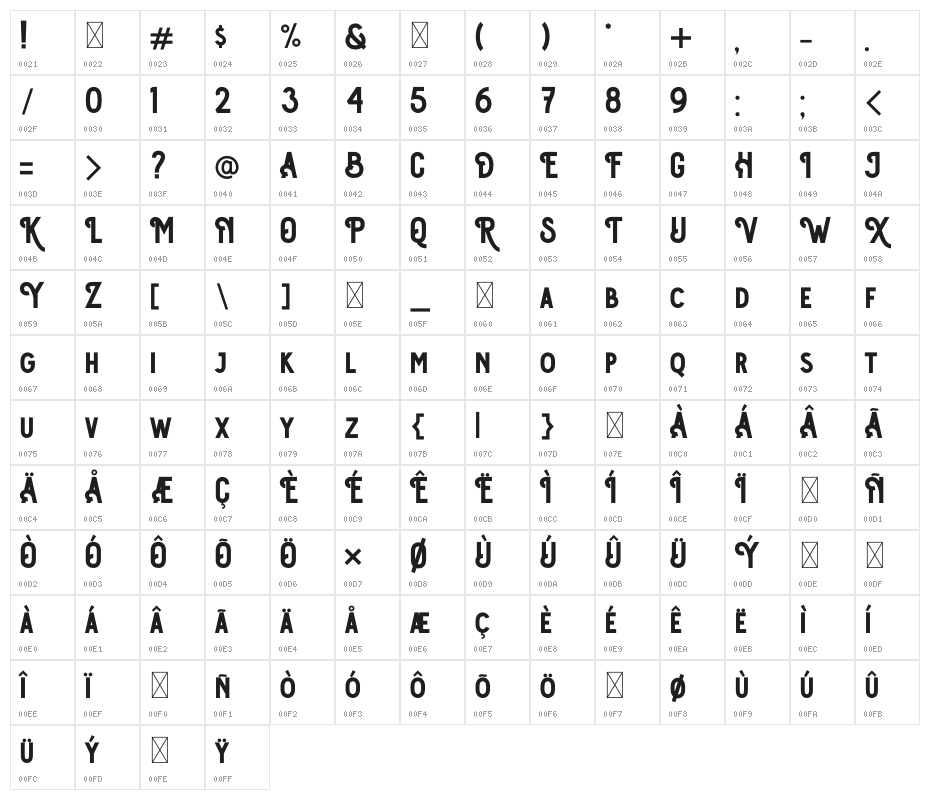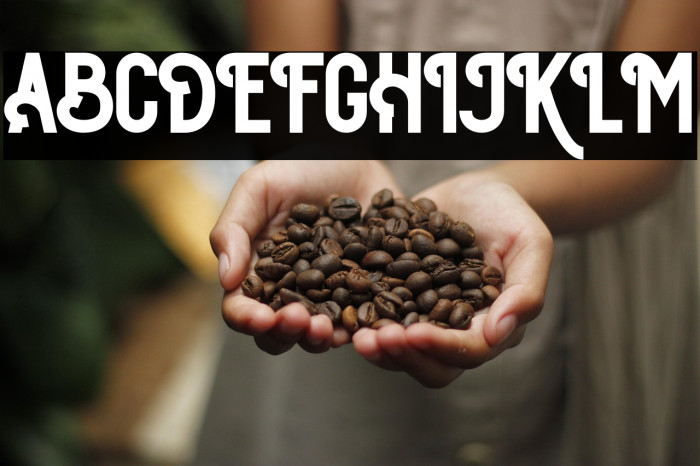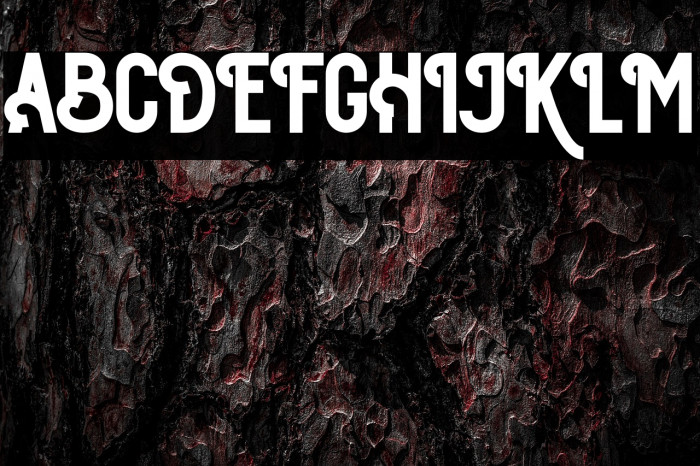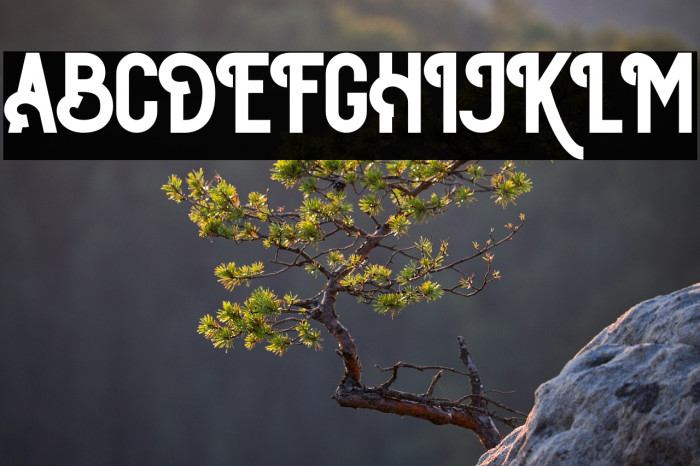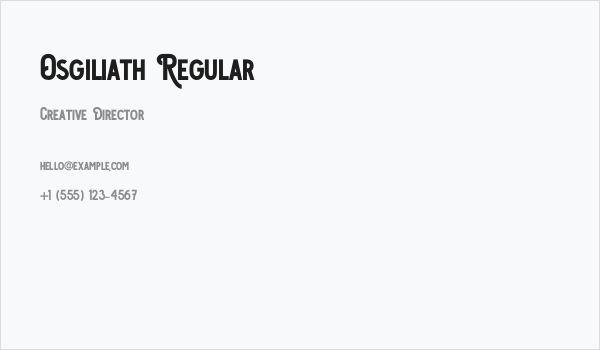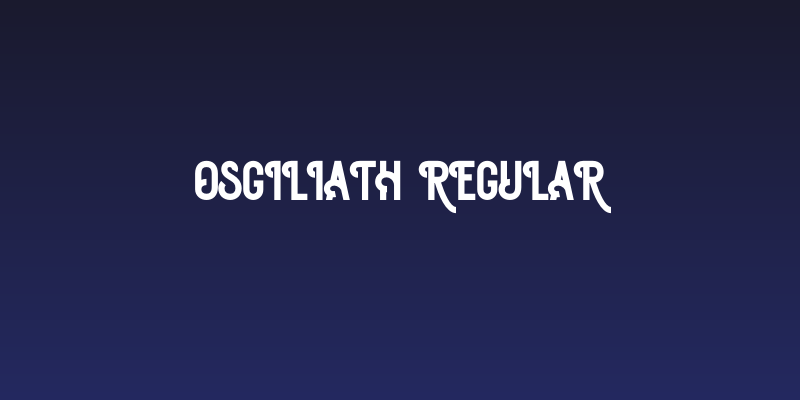
Osgiliath Regular Font
Osgiliath Regular Description
This font features a bold and decorative style with unique, intricate details that give it a distinct personality. The uppercase letters are characterized by their strong, angular shapes and occasional flourishes, adding a touch of elegance and flair. The lowercase letters maintain a consistent style, complementing the uppercase with their bold presence. Numbers are clear and easy to read, while the special characters are designed with the same decorative elements, ensuring a cohesive look throughout. The font's overall appearance is striking and memorable, making it ideal for projects that require a bold statement.